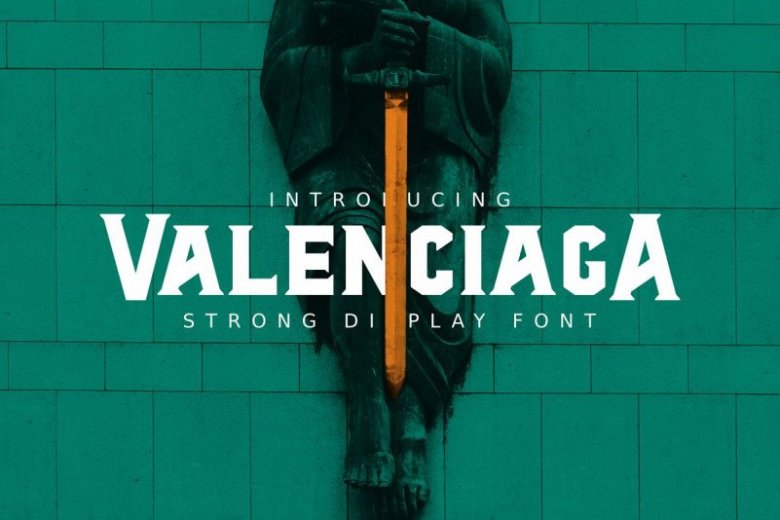
Al Valenciaga Display Font
The vintage serif font inspired by label beer and vintage signage. It’s was designed carefully to create elegant typographic works. It would be a perfect choice to design posters, affiches, logos, t-shirt and magazine prints, eye-pleasing typographic designs and more. Introducing Al Valenciaga Font. It’s a strong display font. It’s a fully-kerned titlecase display typeface built for strong design vibe. Al Valenciaga Display is raw and uncut with sharp terminals and serifs that give off an aggressive appearance. The difference in depth between the uppercase and lowercase, making Valenciaga very suitable to be the display font for your product packaging, logo, branding, and more!